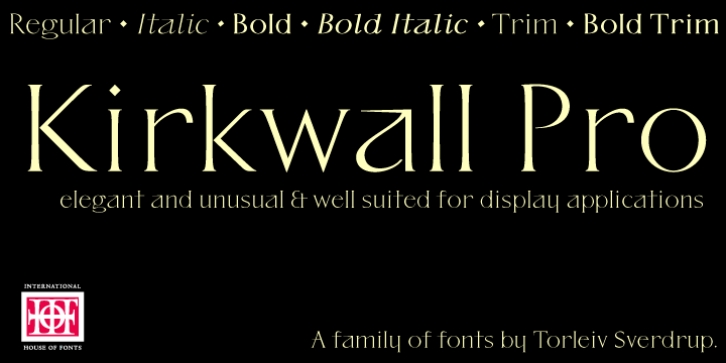
P22 Kirkwall was designed by Torleiv Sverdrup and published by IHOF. P22 Kirkwall contains 10 styles and family package options.
P22 Kirkwall is an unusual and elegant design. The upper case letters have a slightly curved stem that ends in a small serif and wedge crossbars. The lower case letters have a fluid and easy design with end-hooks and long leading serifs. Kirkwall Trim and Bold Trim styles contain an alternate set of lower case characters without the long leading serifs and end-hooks. P22 Kirkwall is appealing for display work and appropriate for short texts and headlines.
According to the designer: 'The type design is inspired by my meeting with the people of Orkney Island and their culture, and it's my tribute to the St. Magnus Cathedral in Kirkwall.'